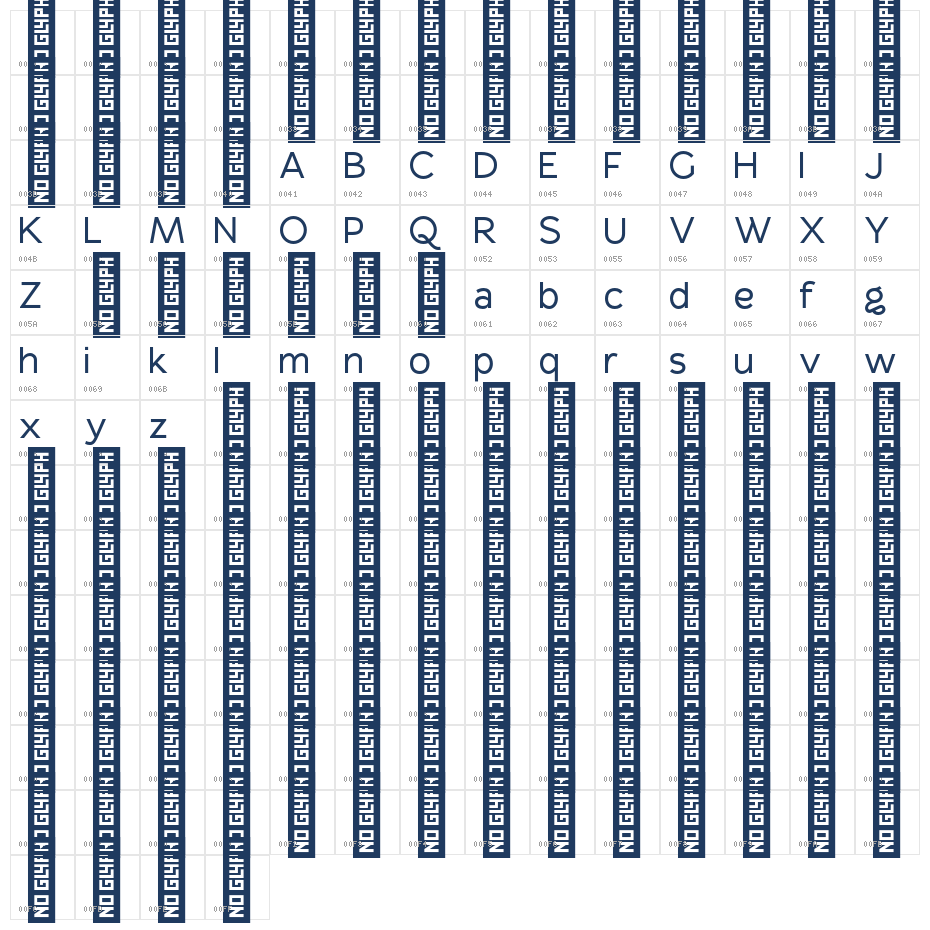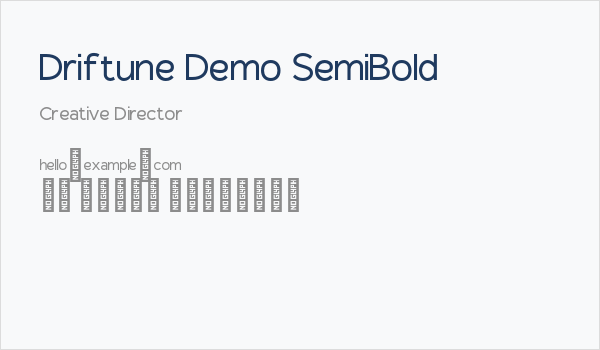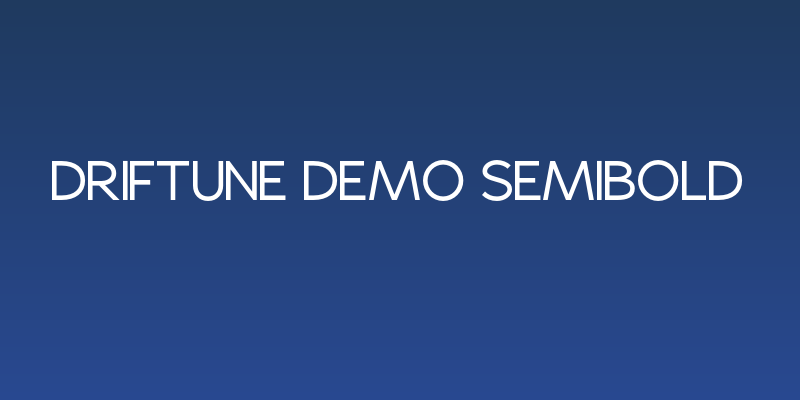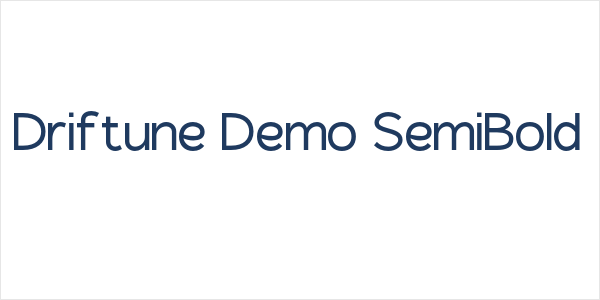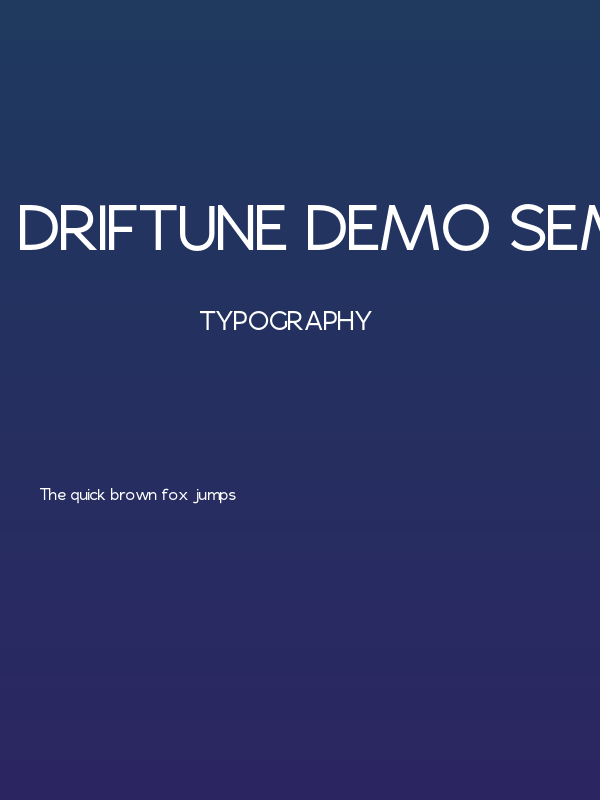
Driftune Demo SemiBold Font
Driftune Demo SemiBold Description
A modern, sans-serif font with clean, geometric lines and a slightly rounded appearance, featuring consistent stroke widths and minimal contrast.
| Overall Style | Modern, Geometric |
| Use Case | Headlines, Body text, Logos, User interfaces |